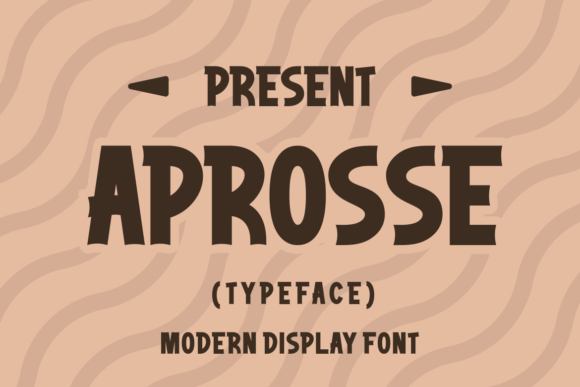
Aprosse Font: Elevate Your Designs with a Cool and Modern Display Font
In the world of typography, a font can make or break a design. A well-chosen font can elevate your creation, adding a touch of personality and style that sets it apart from the rest. If you’re a designer or crafter looking to take your designs to the next level, look no further than Aprosse Font. This cool and modern display font is a wonderful asset to any font library, with the potential to enhance any creation.
What is Aprosse Font?
Aprosse Font is a modern display font designed to make a statement. With its sleek lines and contemporary style, this font is perfect for designers and crafters who want to add a touch of sophistication to their work. Whether you’re creating a logo, a poster, or a social media graphic, Aprosse Font is the perfect choice.
Key Features of Aprosse Font
So, what makes Aprosse Font so special? Here are just a few of its key features:
- Modern Design: Aprosse Font has a sleek and modern design that’s perfect for contemporary designs.
- Display Font: This font is specifically designed for display purposes, making it perfect for headlines, titles, and other attention-grabbing elements.
- Cool and Sophisticated: Aprosse Font has a cool and sophisticated vibe that’s perfect for designs that need a touch of elegance.
- Versatile: This font can be used for a wide range of design projects, from logos and posters to social media graphics and more.
How to Use Aprosse Font
So, how can you use Aprosse Font in your designs? Here are a few ideas to get you started:
- Logos: Aprosse Font is perfect for logos that need a modern and sophisticated touch.
- Posters: Use Aprosse Font to create eye-catching posters that grab attention.
- Social Media Graphics: This font is perfect for social media graphics, including Facebook posts, Instagram stories, and more.
- Headlines: Use Aprosse Font to create bold and attention-grabbing headlines that draw readers in.
Benefits of Using Aprosse Font
So, why should you choose Aprosse Font for your designs? Here are just a few benefits:
- Enhance Your Designs: Aprosse Font has the potential to enhance any creation, adding a touch of style and sophistication.
- Stand Out from the Crowd: With Aprosse Font, you can create designs that stand out from the crowd and grab attention.
- Save Time: This font is easy to use and can save you time when working on design projects.
- Improve Your Brand: Aprosse Font can help improve your brand’s image and reputation with its modern and sophisticated style.
In conclusion, Aprosse Font is a cool and modern display font that’s perfect for designers and crafters who want to take their designs to the next level. With its sleek lines, contemporary style, and versatile uses, this font is a wonderful asset to any font library. Whether you’re creating a logo, poster, or social media graphic, Aprosse Font is the perfect choice. So why wait? Download Aprosse Font today and start elevating your designs!